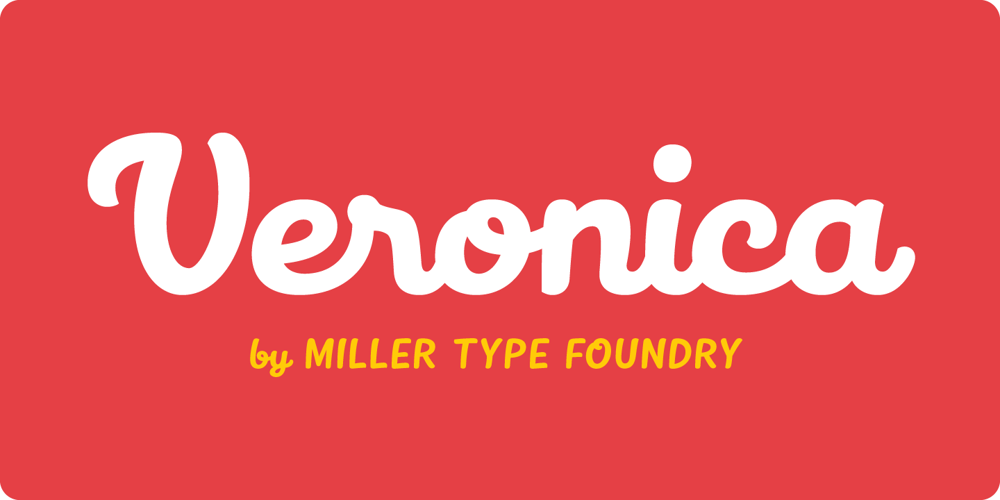
Veronica Font Family was designed by Richard Miller and published by Miller Type Foundry. Veronica contains 2 styles and family package options. Veronica is a fun and playful script font with matching caps. Perfect for headlines, logos or display purposes; Veronica is sure to put a smile on the face of everyone who sees it. Veronica comes with opentype features like oldstyle figures, ligatures and stylistic alternates.